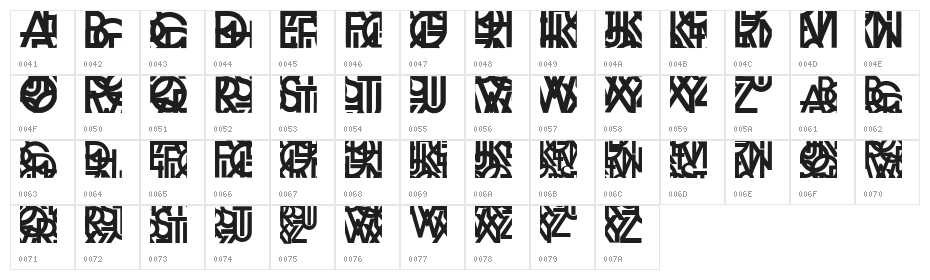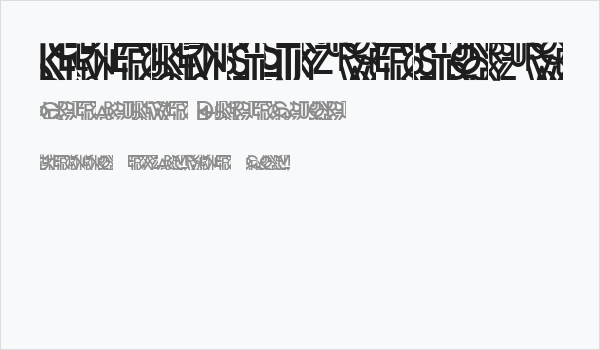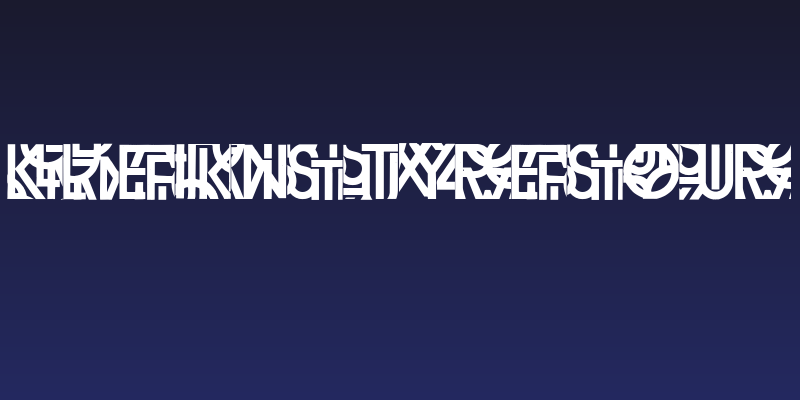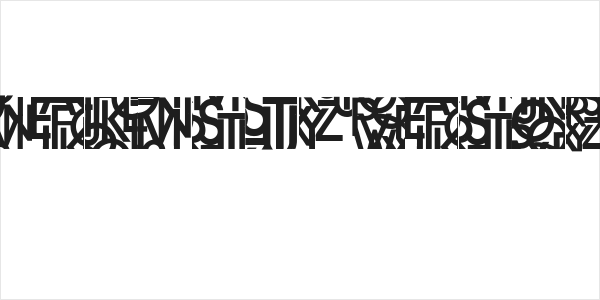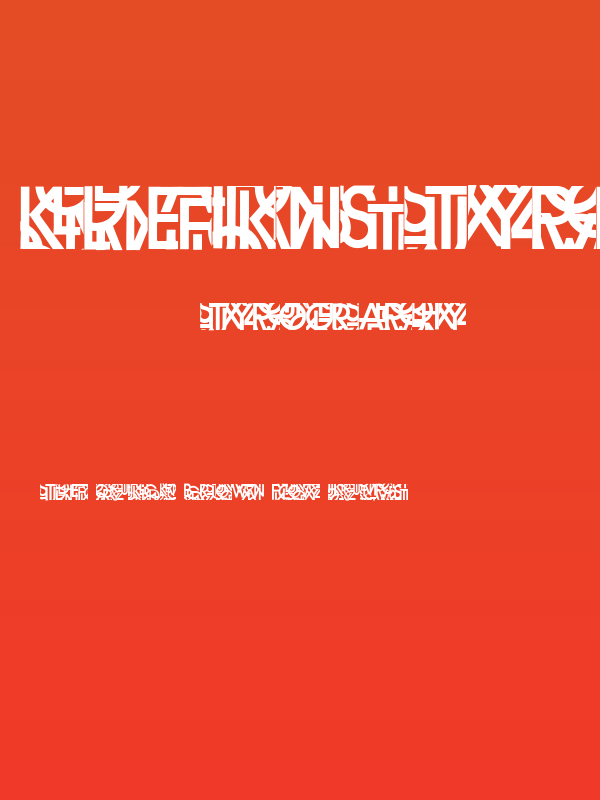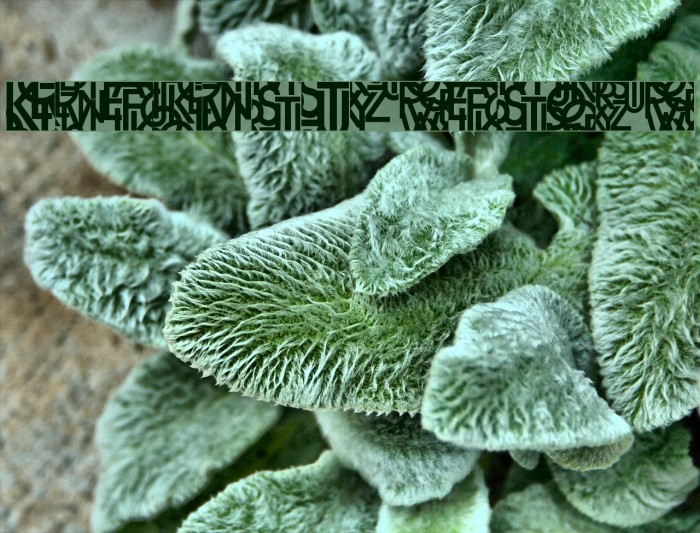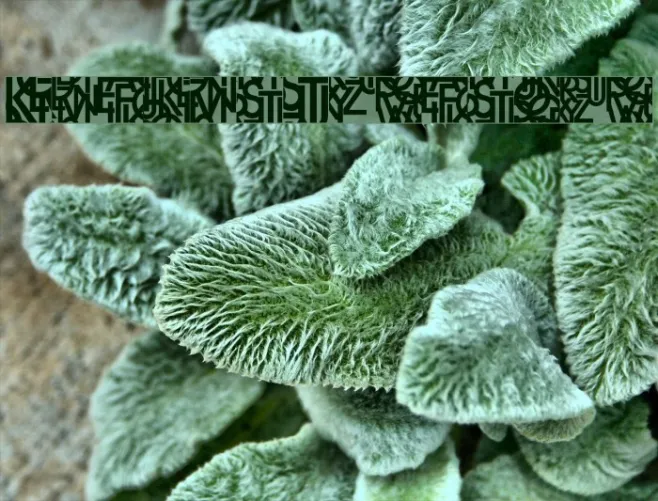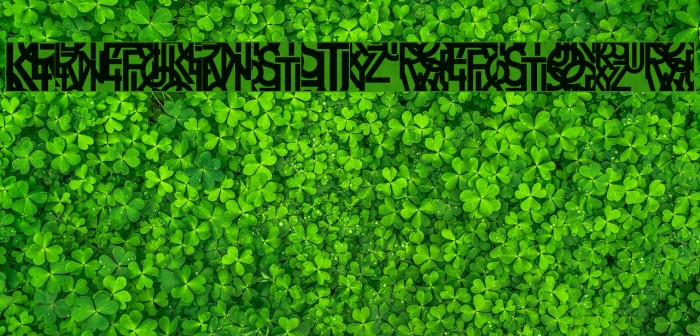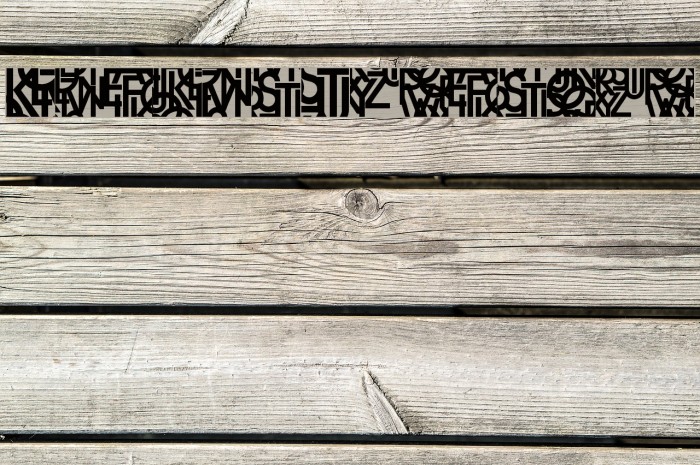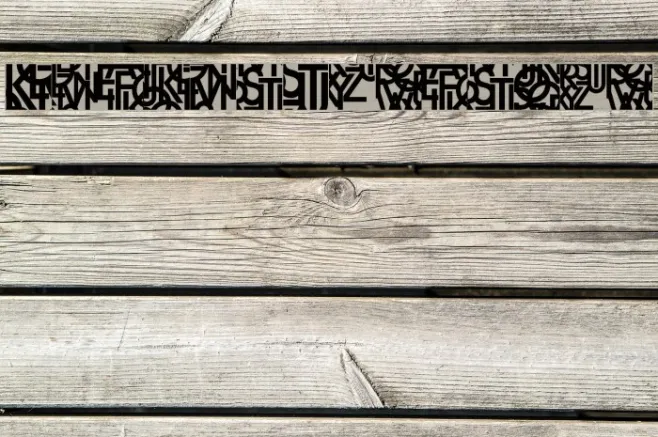
KleinsTypesoup Font
KleinsTypesoup Description
This font features a highly decorative and artistic style, characterized by overlapping and interlocking letterforms that create a visually complex and intriguing appearance. The letters are bold and have a strong presence, with each character intricately designed to intertwine with its neighbors. This creates a sense of movement and energy, making it a standout choice for projects that require a unique and eye-catching typeface. The font's complexity may limit its readability in smaller sizes, but it excels in larger formats where its artistic qualities can be fully appreciated.
| Proposed Projects | Suitable for artistic posters, album covers, branding for creative industries, and any project that benefits from a bold, decorative typeface. |